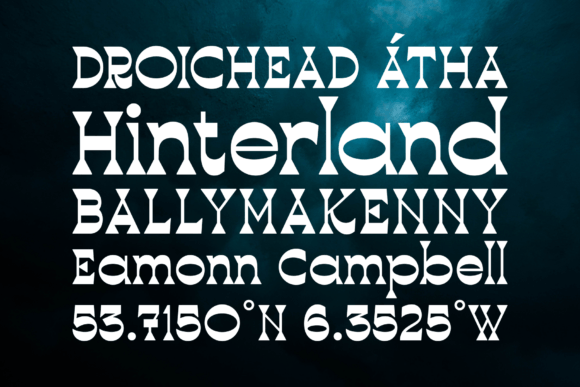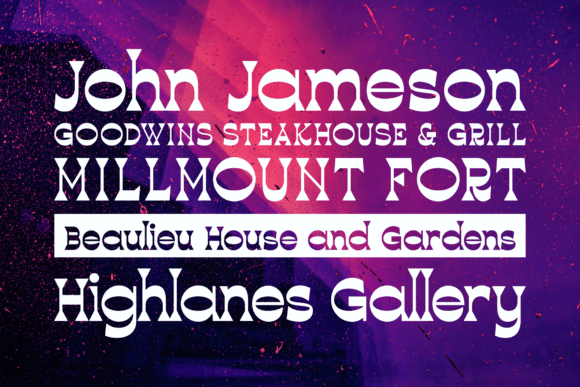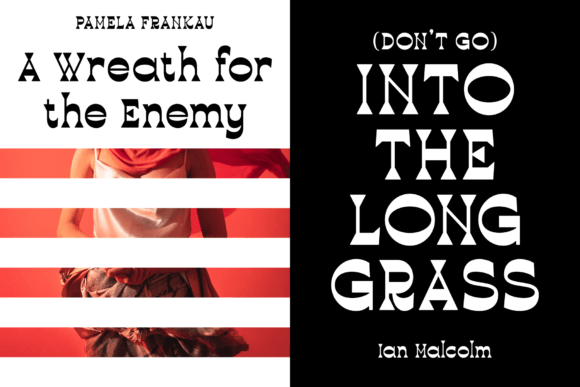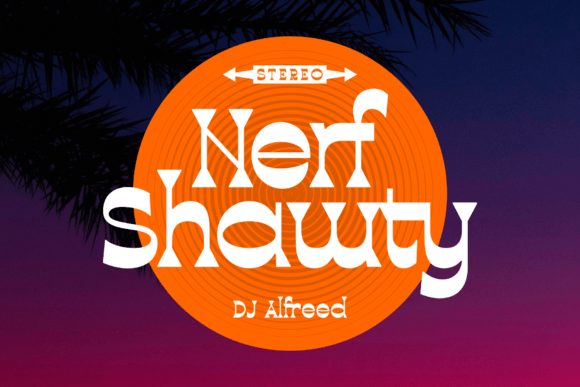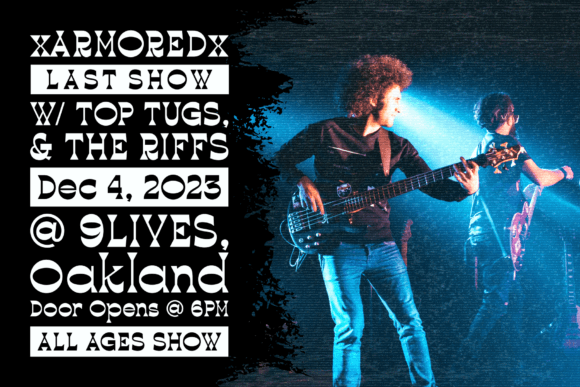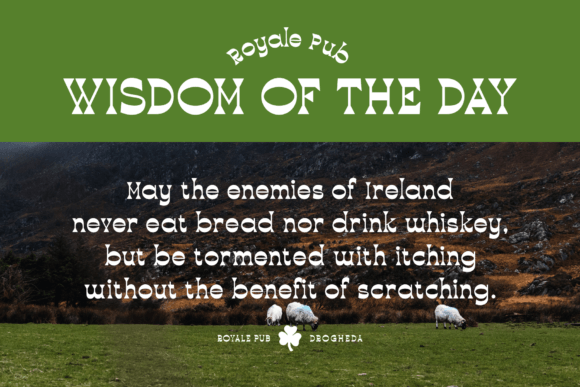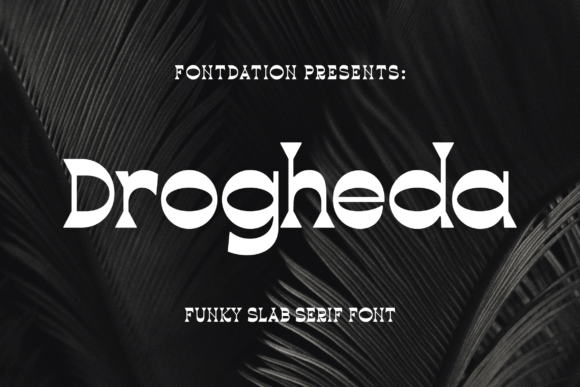
Introducing Drogheda Font: A Reversed-Contrast Slab Serif with a Strong Personality
We are thrilled to announce the latest addition to our font collection: Drogheda. This stunning reversed-contrast slab serif font is designed to make a statement with its strong yet flexible personality. Crafted with meticulous attention to detail, Drogheda is sure to elevate your design game and provide you with the best designing experience.
What is Drogheda Font?
Drogheda is a unique and eye-catching font that combines the classic elegance of slab serif fonts with a modern twist. Its reversed-contrast design features bold, chunky serifs and sleek, refined strokes, creating a striking visual effect that demands attention. Whether you’re looking to create bold headlines, striking posters, or inspirational quotes, Drogheda is the perfect choice.
Key Features of Drogheda Font
- Reversed-Contrast Design: Drogheda’s distinctive reversed-contrast design sets it apart from other slab serif fonts. Its bold serifs and sleek strokes create a visually appealing contrast that adds depth and interest to your designs.
- Strong yet Flexible Personality: Drogheda’s unique design makes it perfect for a wide range of applications, from bold headlines and posters to inspirational quotes and more.
- High Attention to Detail: Our team has crafted Drogheda with meticulous attention to detail, ensuring that every aspect of the font is of the highest quality.
Use Cases for Drogheda Font
Drogheda’s versatility makes it suitable for a wide range of design applications, including:
- Poster Designs: Create eye-catching posters that grab attention with Drogheda’s bold, chunky serifs and sleek strokes.
- Headlines: Use Drogheda to create bold, attention-grabbing headlines that set the tone for your content.
- Quote Writings: Add a touch of elegance and sophistication to your inspirational quotes with Drogheda’s refined and sleek design.
Why Choose Drogheda Font?
With so many fonts available, why choose Drogheda? Here are just a few reasons why Drogheda stands out:
- Unique Design: Drogheda’s reversed-contrast design makes it a standout font that will set your designs apart from the crowd.
- High-Quality Craftsmanship: Our team has crafted Drogheda with attention to detail, ensuring that every aspect of the font is of the highest quality.
- Flexibility: Drogheda’s strong yet flexible personality makes it suitable for a wide range of design applications.
Introducing Drogheda Font, the latest addition to our font collection. With its unique reversed-contrast design, strong yet flexible personality, and high-quality craftsmanship, Drogheda is the perfect choice for designers and crafters looking to elevate their design game. Available in both OTF and TTF formats, Drogheda is ready to take your designs to the next level.